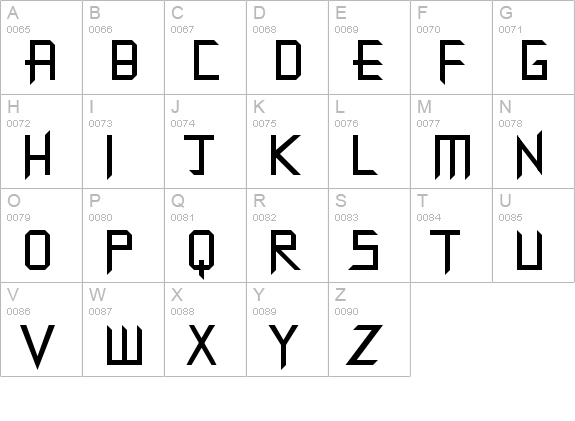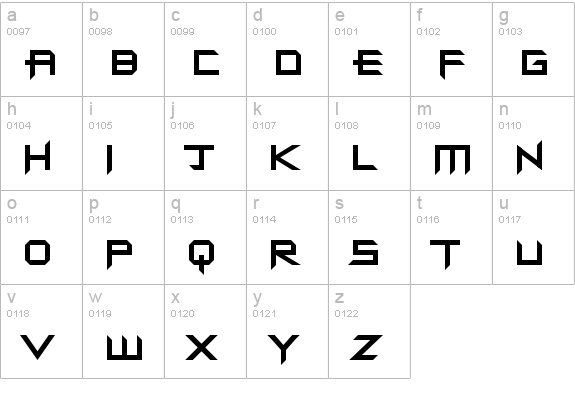
Dubstep Dungeons font is a captivating and edgy typeface that brings a unique and futuristic feel to any design project. Inspired by the dynamic and pulsating beats of dubstep music, this font is perfect for those who want to add a touch of excitement and energy to their designs. With its sharp and bold letterforms, Dubstep Dungeons font commands attention and creates a sense of movement. Its strong geometric shapes and intricate details make it a versatile font that can be used for various purposes, from album covers and posters to logos and branding. What makes Dubstep Dungeons font even more impressive is that it is available for free. Yes, you heard it right! This font is freely available to download at FontsMarket.com. Whether you're a professional designer or a hobbyist, you can easily access and use this font to enhance your creative projects without any cost. So, if you're looking for a font that will make your designs stand out from the crowd and bring a modern and dynamic vibe, look no further than Dubstep Dungeons font. Download it for free at FontsMarket.com and let your creativity flow with this captivating typeface.